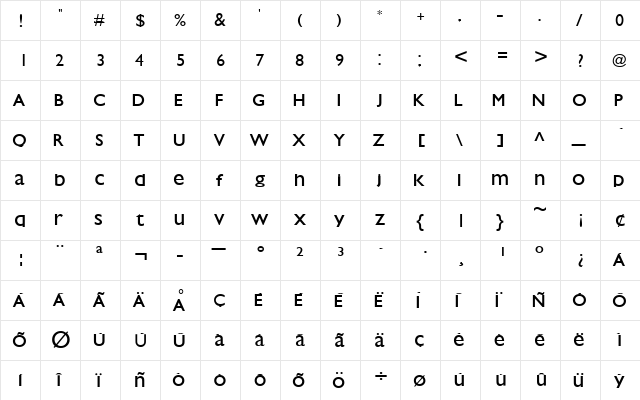
Gill Sonos Regular
| Foundry | Dani Dalledone |
| Designer | Dani Dalledone |
Design Context for Gill Sonos Typeface
Gill Sonos is a composed and adaptable typeface that performs quietly and consistently across a wide range of design contexts.